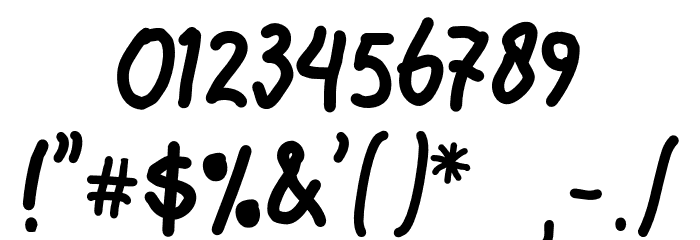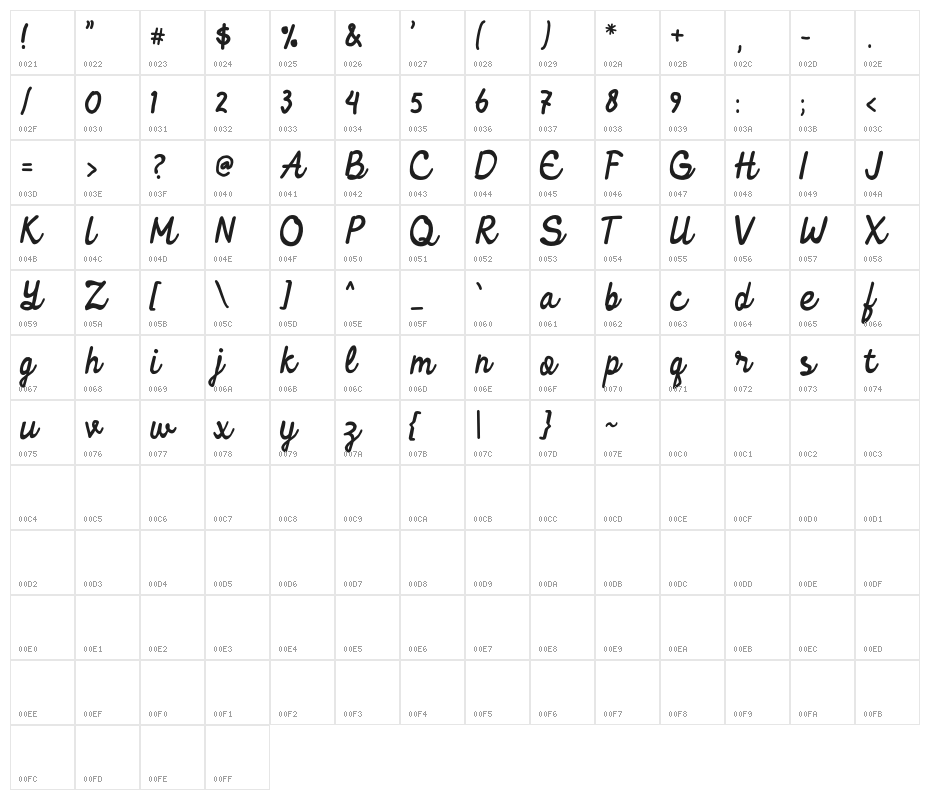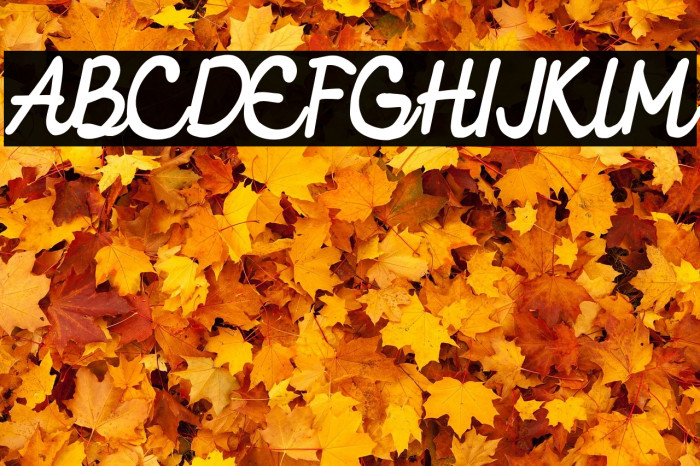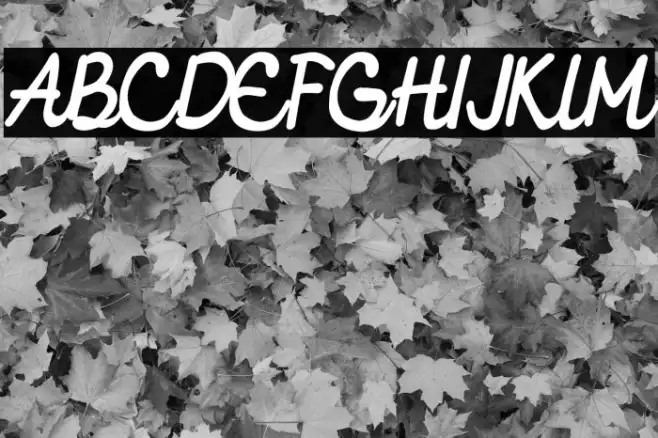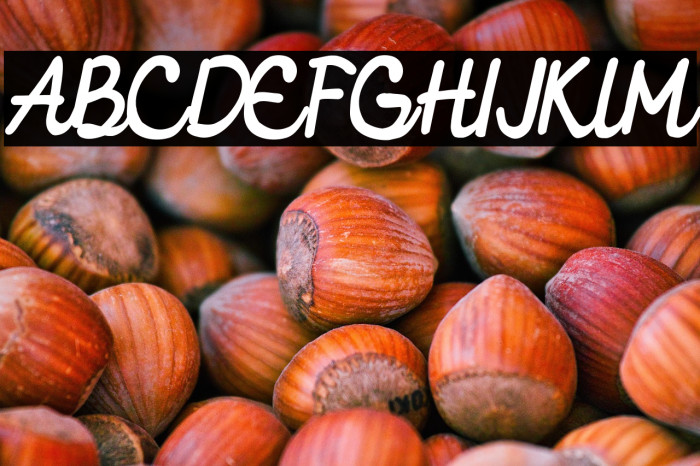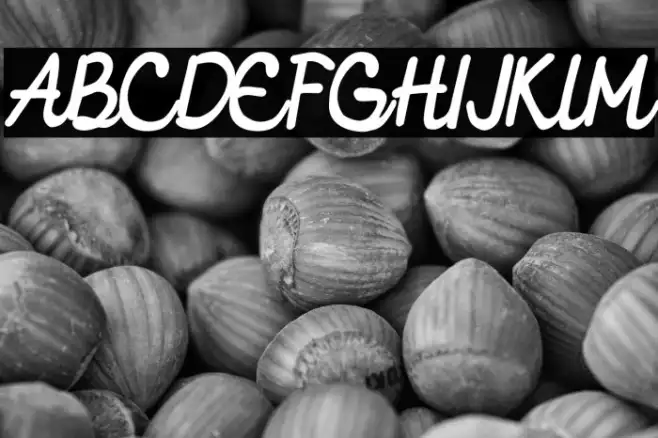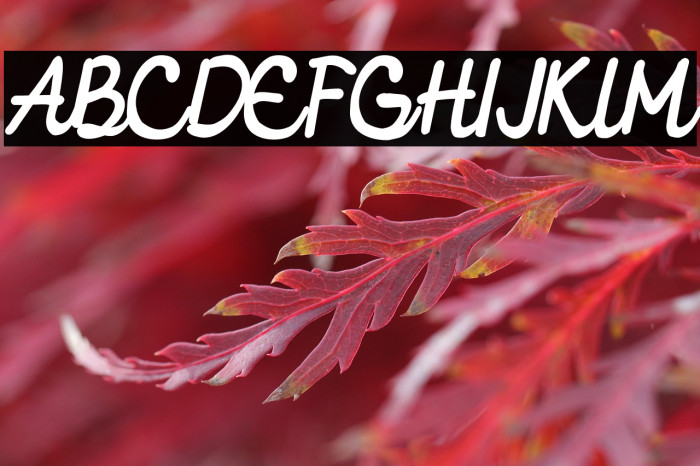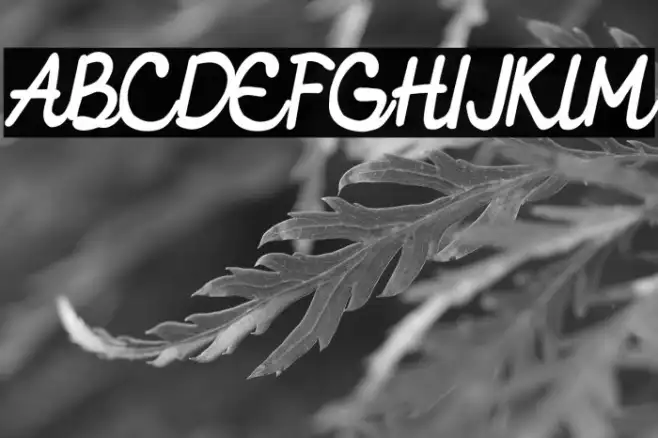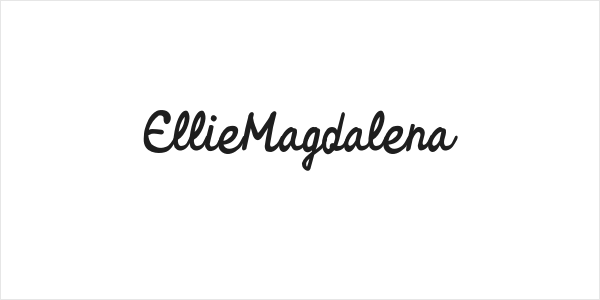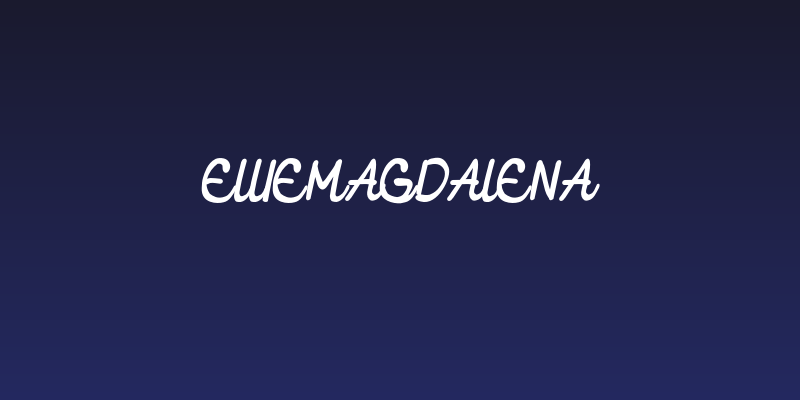
EllieMagdalena Font
EllieMagdalena Description
This font features a playful and flowing script style, characterized by its smooth, connected strokes that mimic natural handwriting. The uppercase letters are bold and slightly slanted, giving a sense of movement and energy. The lowercase letters maintain a consistent flow, with rounded edges and a casual elegance. Numbers and special characters are designed to match the overall style, ensuring a cohesive look across all text. The font's design is both approachable and stylish, making it suitable for a variety of creative projects.